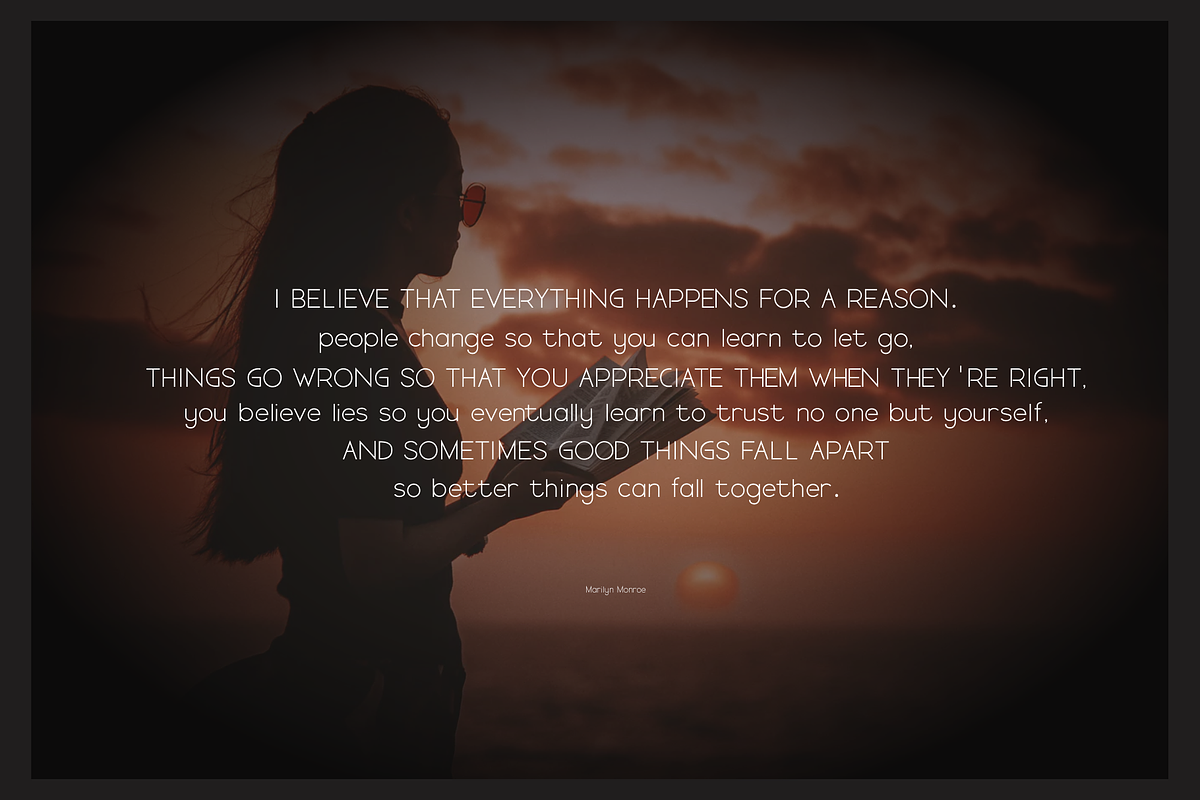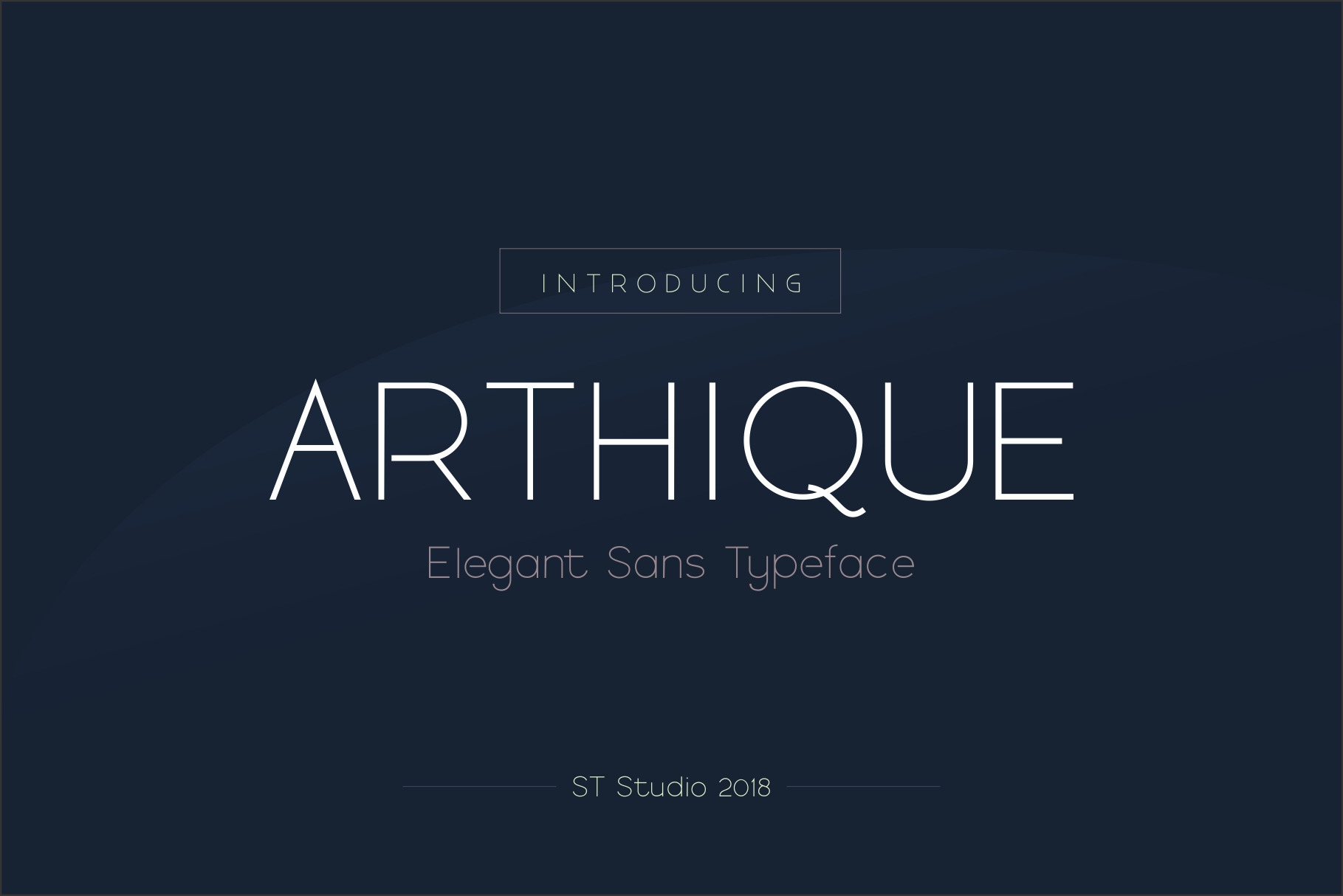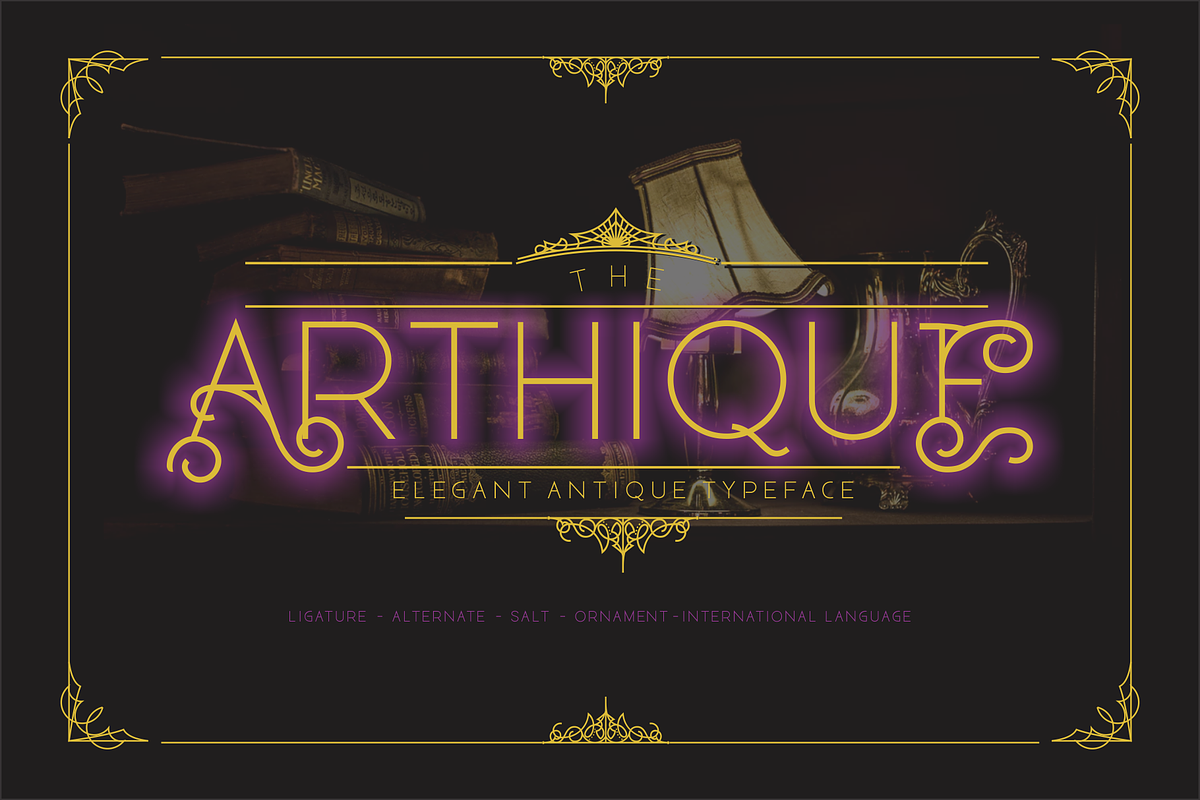
ARTHIQUE ELEGANT FONT
Hello, This is our newest font. ARTHIQUE represents antique and artistic words, is a thin and standard sans serief font, so this font has the style of ELEGANT and ANTIQUE characters because in the alternative UPPERCASE the font changes to Ornamental on each letter character. designs that require ELEGANT fonts, Logo Design, Fashion, Boutique, Letterhead, and other graphic needs.
Opentype feature :
- Salt
- ss01 -ss02 graphic ornaments and bonus graphic
- Ligature and international language support.